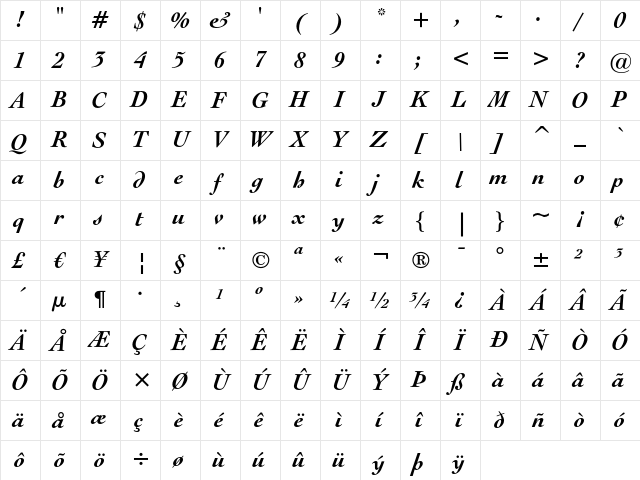
Engravers' Oldstyle 205 Bold Italic Free Font
Engravers' Oldstyle 205 Bold Italic
Design Context for Engravers' Oldstyle 205
Engravers' Oldstyle 205 carries the refined structure of traditional serif typography, with bracketed terminals and considered proportions that communicate credibility and craft. The slanted form adds forward momentum and visual energy. Its bold stroke weight gives it real presence on the page.